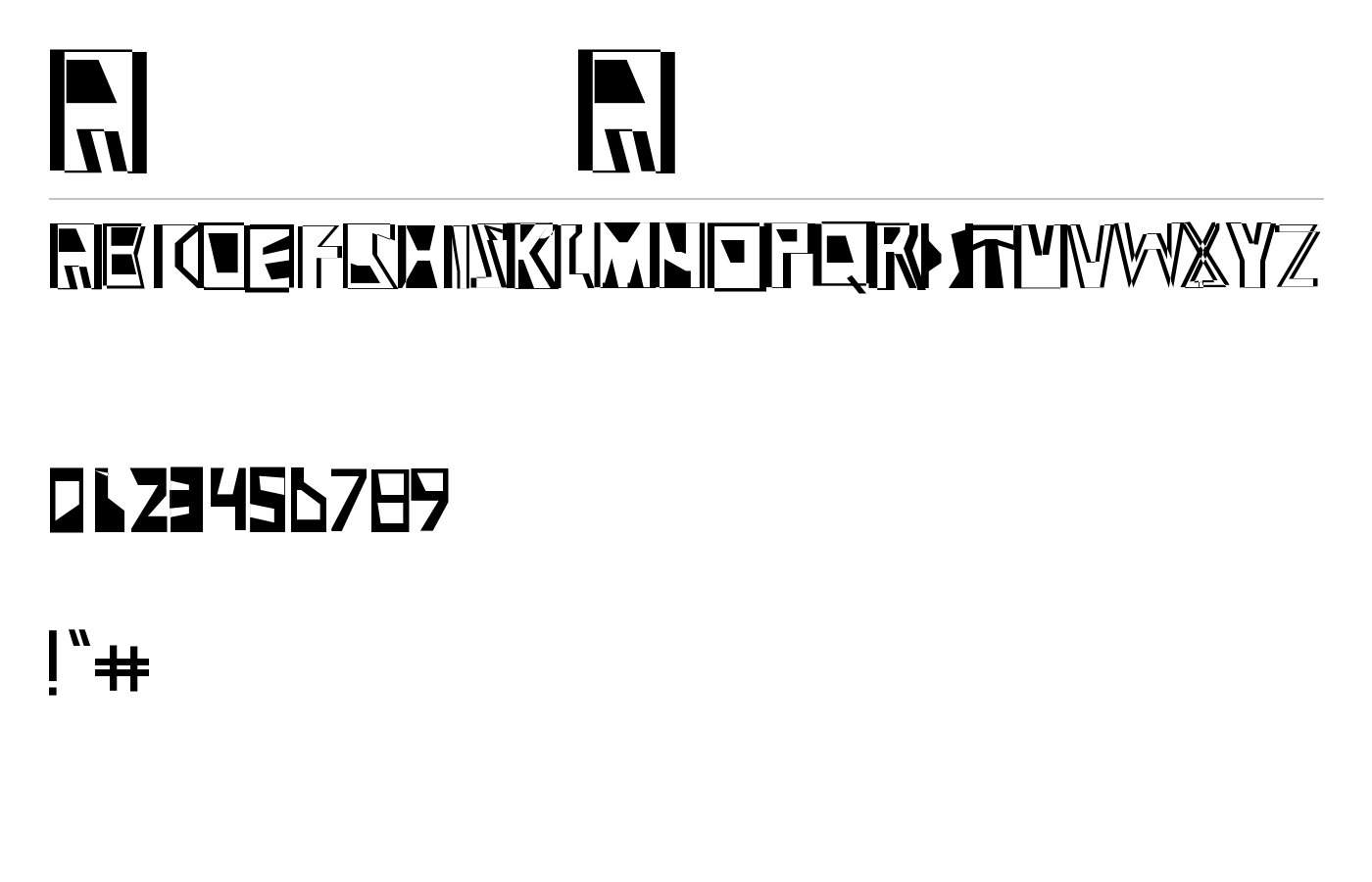
Abstract Abomination is a bold, geometric sans serif font with a highly abstract and fragmented design that creates a striking, almost chaotic appearance. Its sharp edges and unconventional letterforms give it a strong, avant-garde personality, making it ideal for artistic projects, experimental branding, or bold headlines where a futuristic, disruptive vibe is desired. This font works best in large display settings where its unique style can be fully appreciated without sacrificing legibility.
Abstract Abomination Font
About Abstract Abomination Font